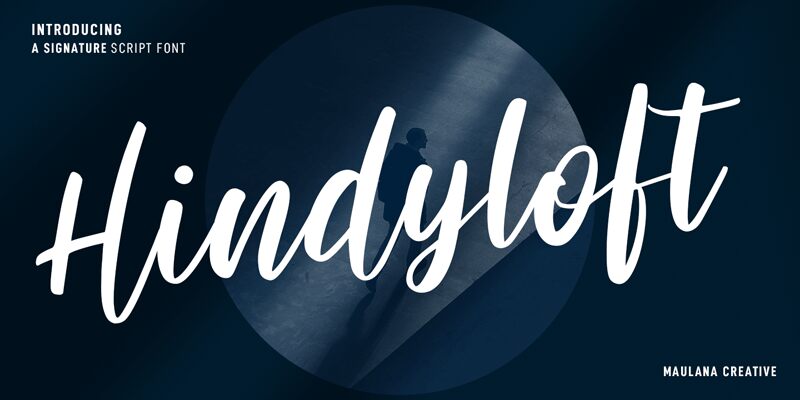
Hindyloft Free Regular
Hindyloft, designed by Maulana Creative, is an exquisite semi-light handwritten font that adds a touch of elegance to any project. Its flowing lines and delicate curves make it perfect for wedding invitations, greeting cards, and feminine branding materials. With its unique blend of sophistication and playfulness, Hindyloft also shines in children's book illustrations and whimsical designs. This font effortlessly captures attention with its versatility and readability on various digital platforms. Whether you're crafting a logo or creating social media graphics, Hindyloft is your go-to choice for adding a charming handwritten feel to your projects.